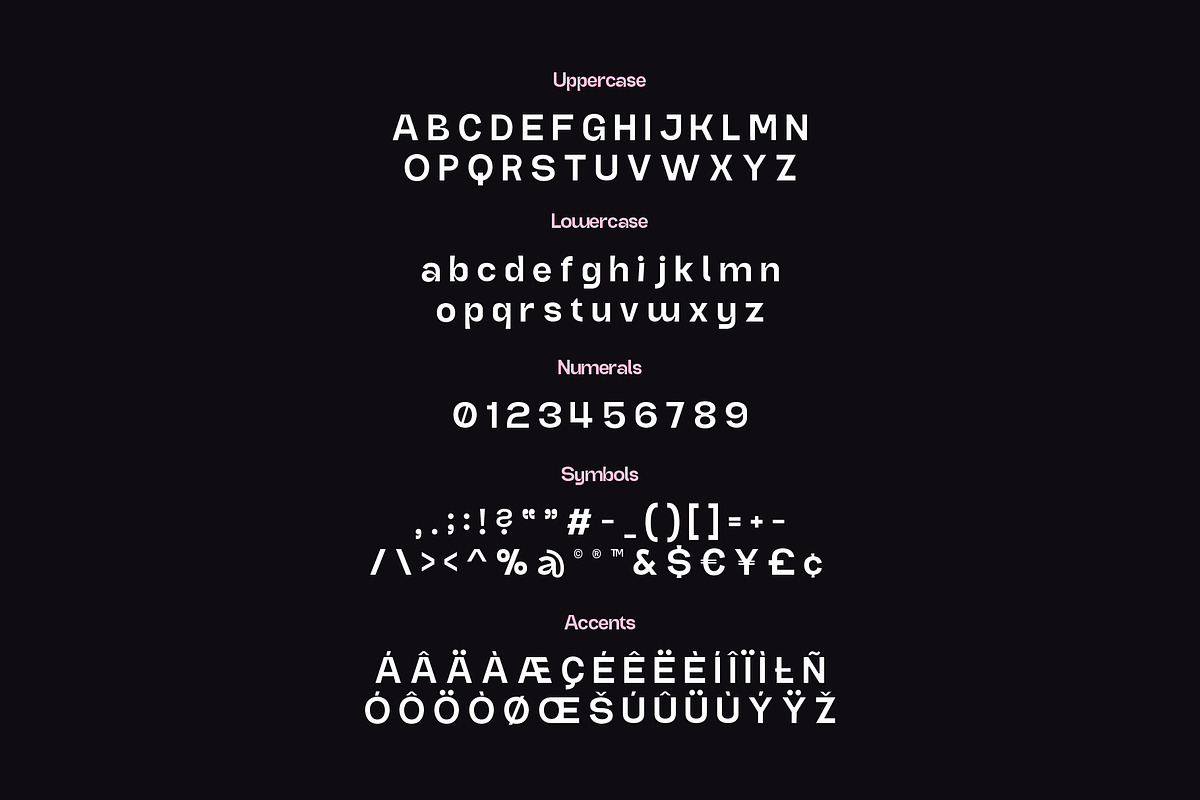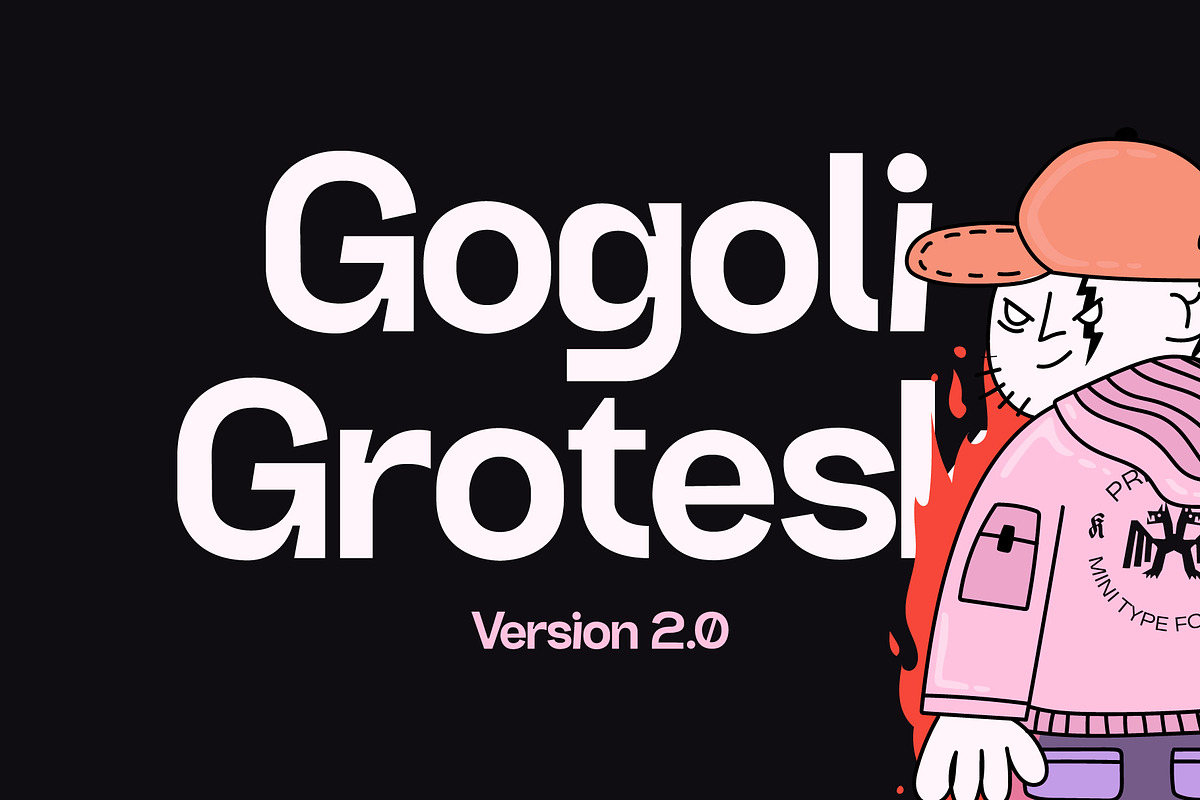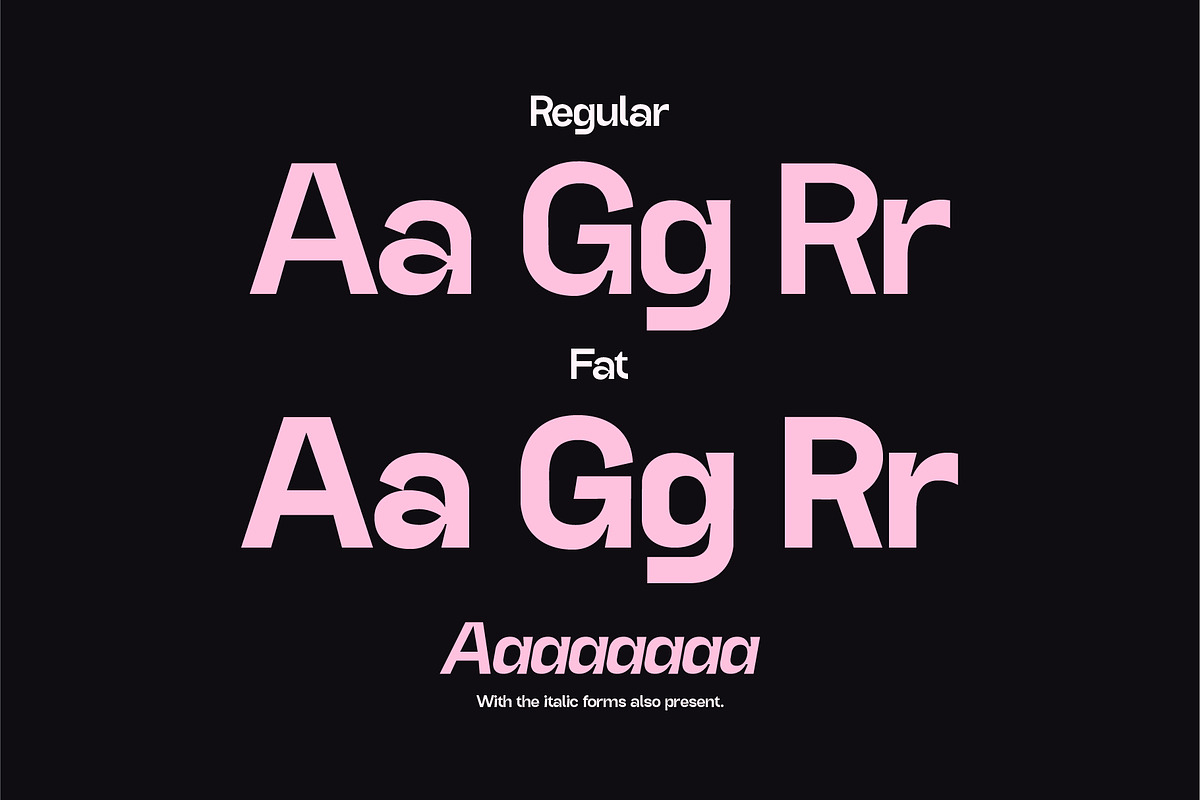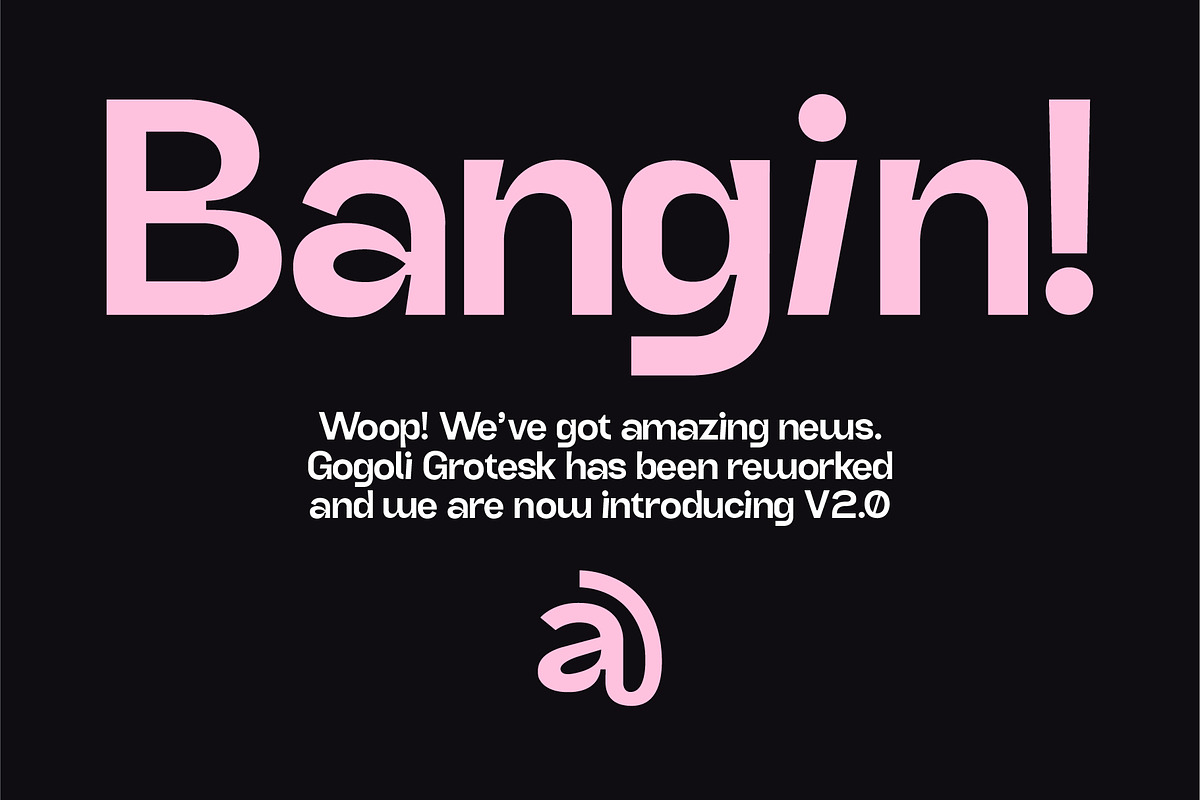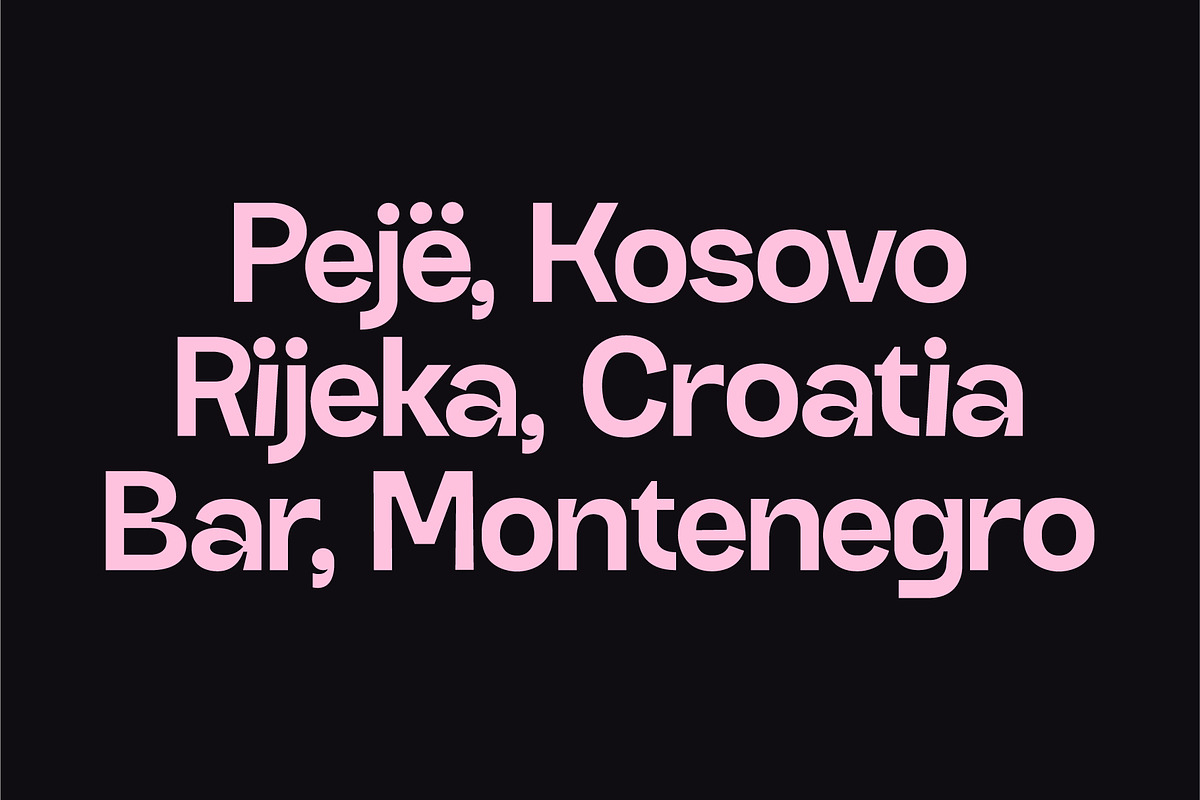
Gogoli 2.0 - Grotesk Type
After Trafika Sans & the rework of Trafika Mono it was time for Gogoli to have the same fate.
We present to you Gogoli 2.0 - A reworked version of our earliest & favorite Grotesk! We have added more curvature, reworked every single glyph & updated the terminals. For 2.0 we have also added some very prominent inktraps.
Gogoli 2.0 now supports quite a few accents or Western European languages as opposed to 1.0 which only had 2 accents.
Features a Regular & Fat weight with the italic variants included.